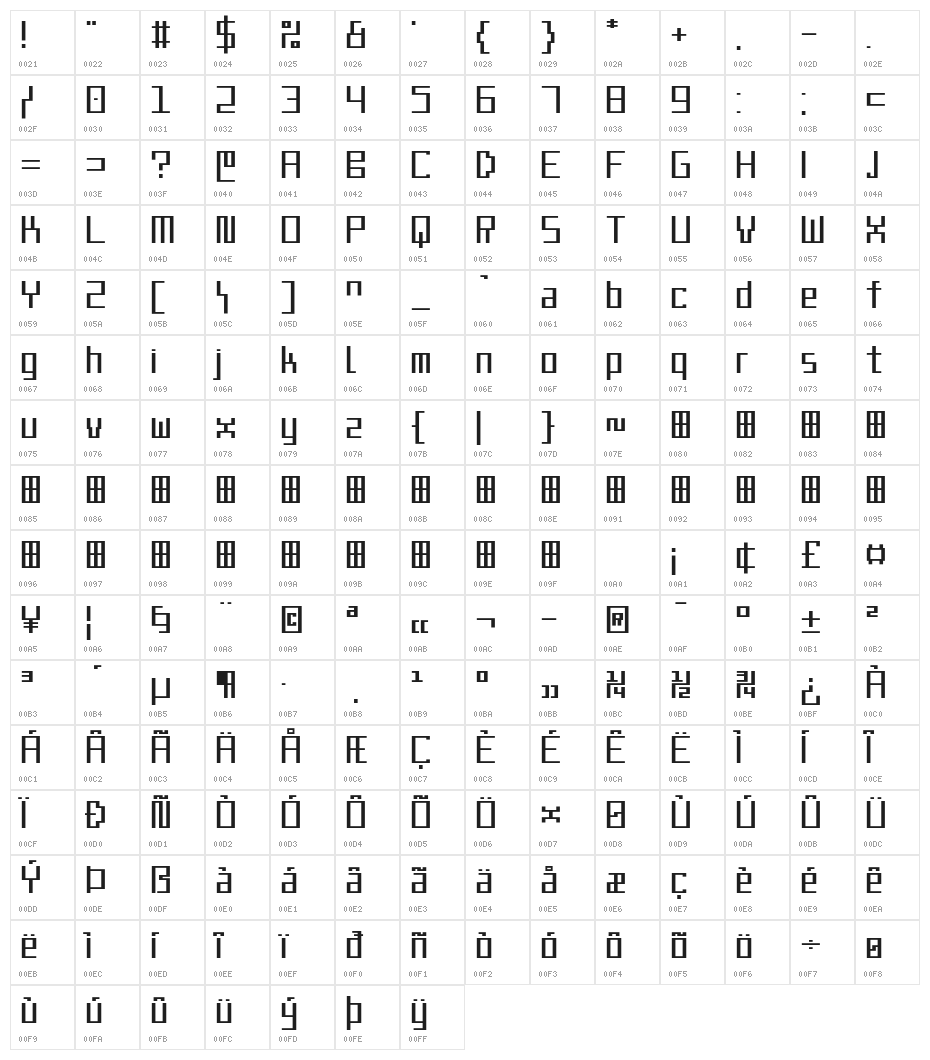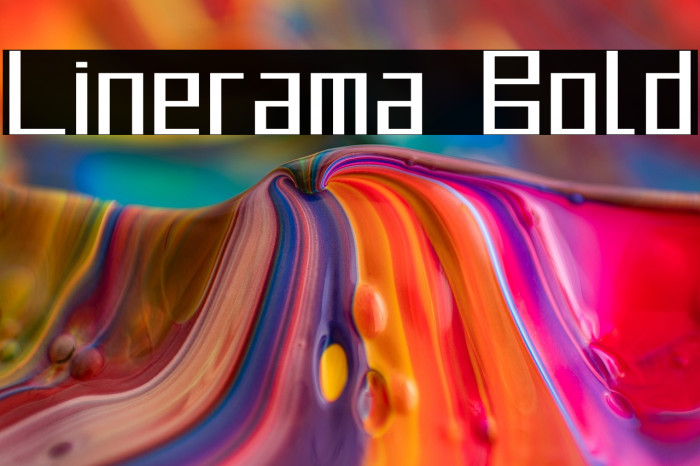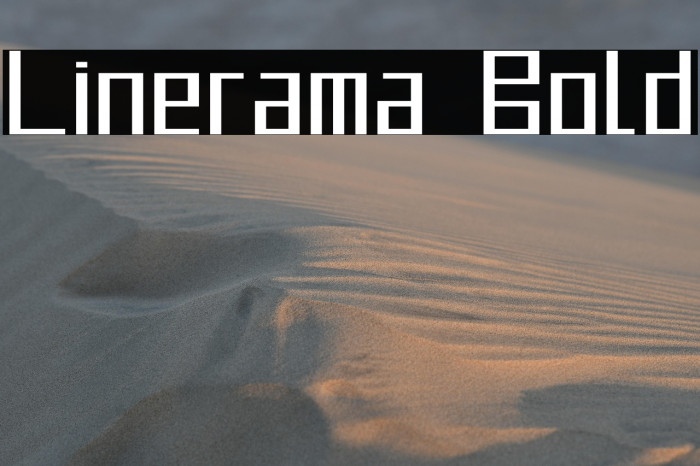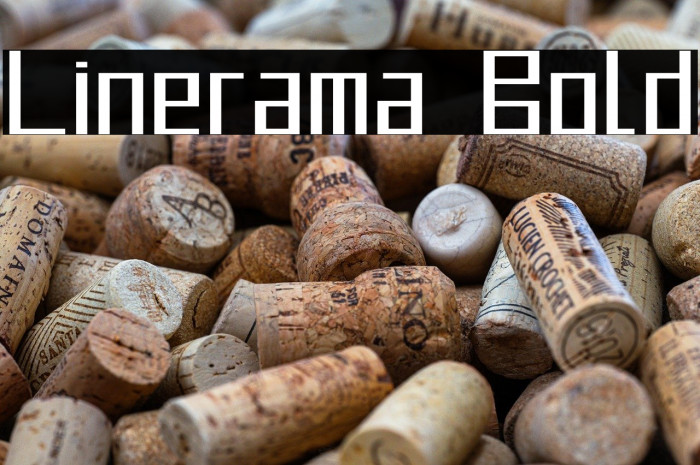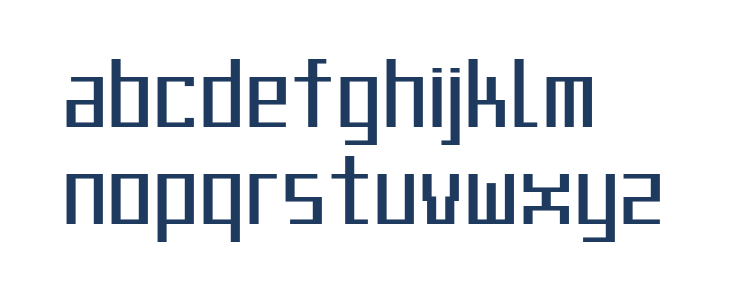
Linerama Bold Font
Linerama Bold Description
This font features a bold, geometric design with a distinctly modern and digital aesthetic. Each character is constructed with straight lines and right angles, giving it a blocky, pixelated appearance reminiscent of early computer graphics. The uppercase and lowercase letters maintain a consistent height, while the numerals and special characters follow the same structured form. The uniformity in line thickness across all characters contributes to a cohesive and clean look, making it suitable for digital interfaces or tech-themed projects.